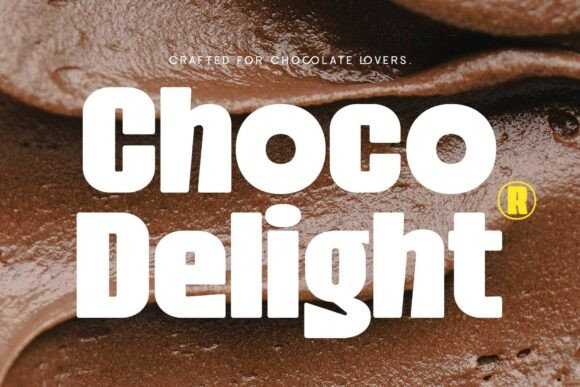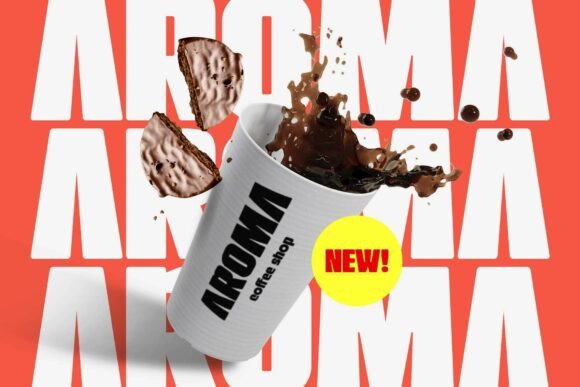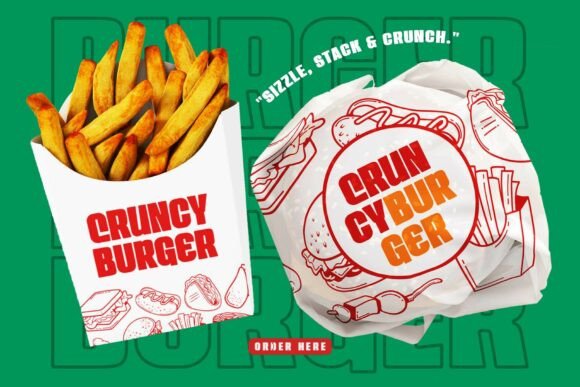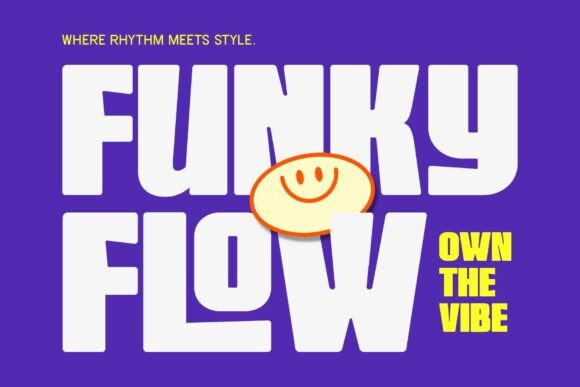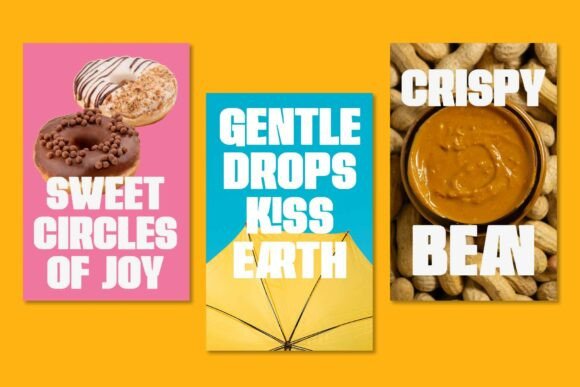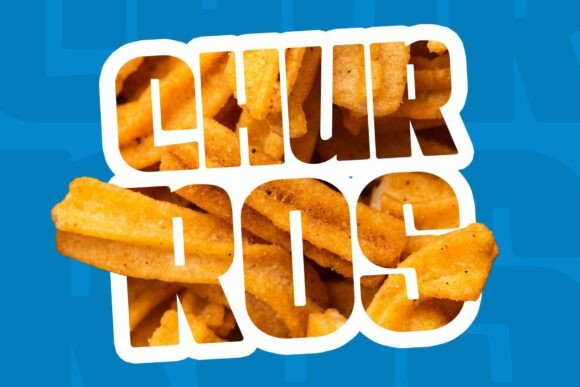
Introduction to Roneva Font Font
Fonts play a crucial role in design, and the Roneva Font font is a typeface that brings both character and versatility to any project. Whether you’re working on a branding project, a website, or a print design, the Roneva Font font offers a unique style that can elevate your work.
Bring playful rhythm and bold character into your designs with Roneva β a condensed sans serif crafted in a funky style full of personality.
With its chunky letterforms, groovy curves, and energetic flow, this typeface is perfect for projects that need to stand out with confidence and fun vibes Roneva is more than just a font β itβs a vibe.
Key Features of Roneva Font Font
Why Choose Roneva Font Font?
The Roneva Font font is more than just a typeface β it’s a design tool that helps you communicate your message with style and clarity. Its unique character set and versatile design make it suitable for a wide range of applications, from elegant invitations to bold headlines.
With its carefully crafted letterforms and balanced proportions, the Roneva Font font ensures readability and visual appeal across all mediums.
What makes Roneva Font font special?
The Roneva Font font stands out with its unique design, exceptional readability, and versatility across various design applications.